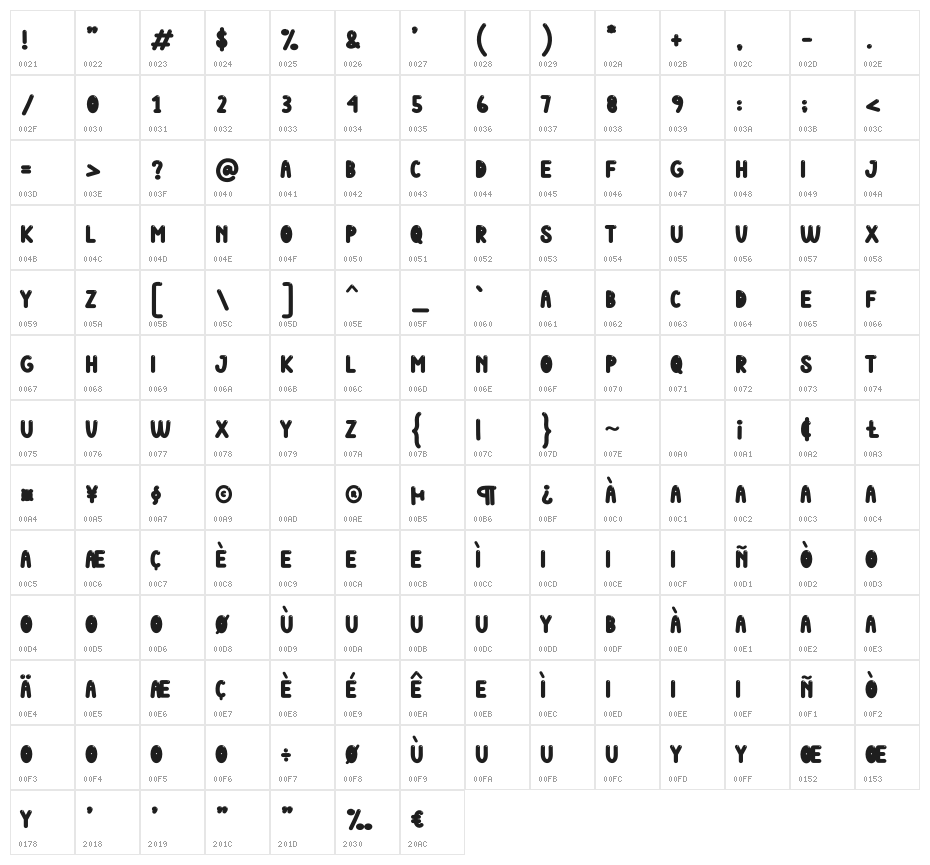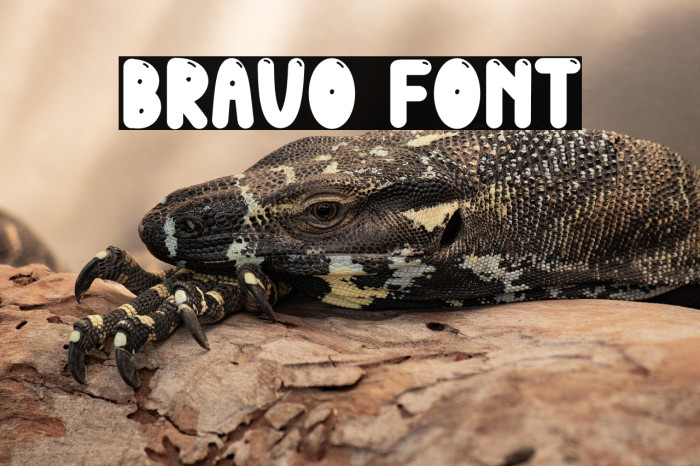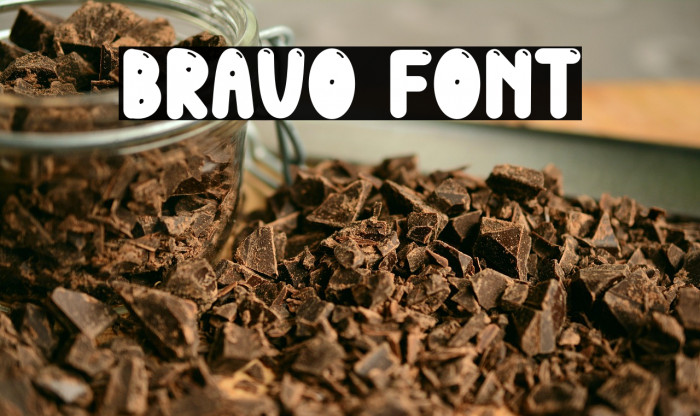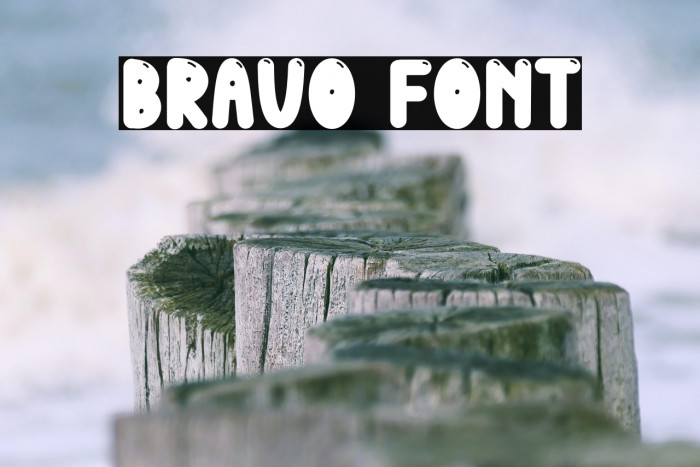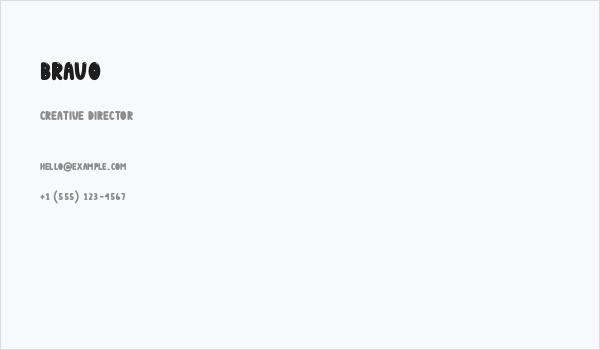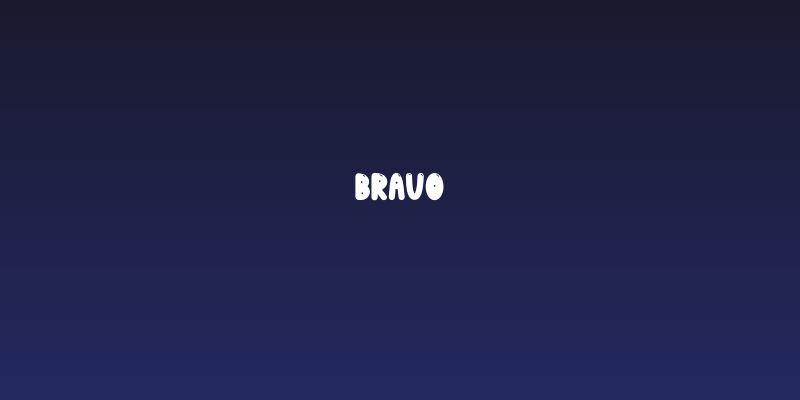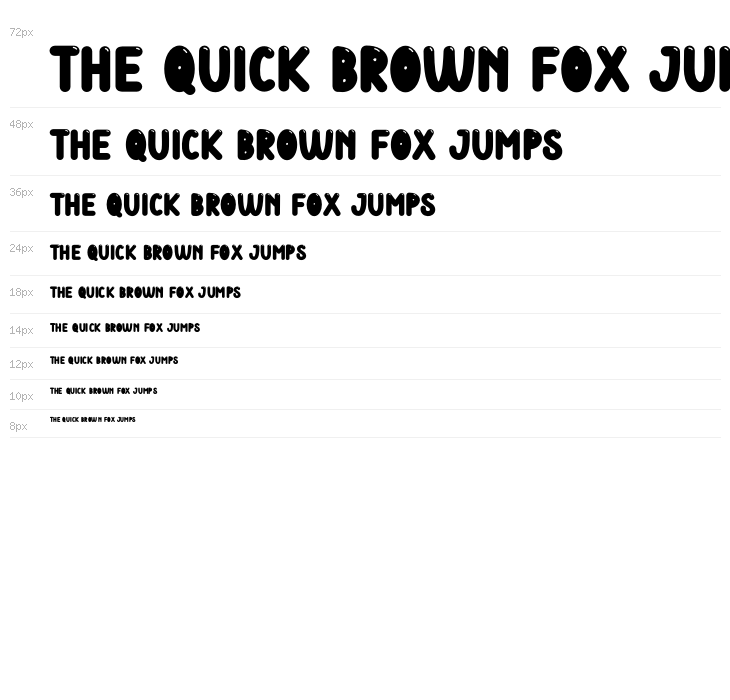
Bravo Font
Bravo Description
This font features a playful and bold style with rounded edges and a bubbly appearance. The characters are thick and uniform, giving a sense of fun and approachability. The uppercase and lowercase letters maintain a consistent weight, contributing to a cohesive look. The numbers and special characters follow the same design principles, ensuring versatility across different uses. The overall design is reminiscent of retro or vintage styles, making it suitable for projects that aim to evoke nostalgia or a sense of whimsy. The font's boldness and rounded forms make it stand out, ideal for eye-catching designs.
| Proposed Projects | Ideal for children's books, playful branding, retro-themed posters, and creative social media graphics. |